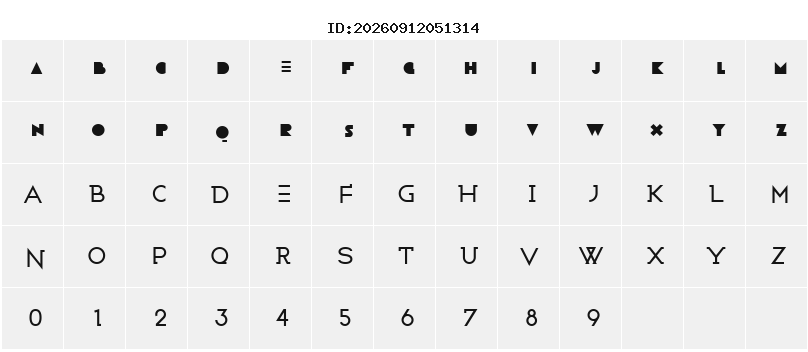
Wicked Preview
• Font Name: Wicked
• Full Font Name: WICKED REGULAR
• Designer: emile byeongsu kim
About Wicked.ttf
Wicked.ttf is a modern, elegant sans-serif font designed for ultimate readability and visual harmony. Perfect for branding, headlines, web design, and print materials.